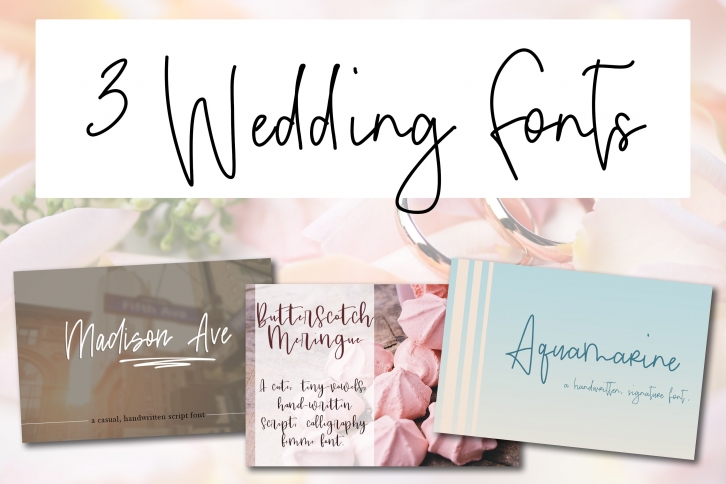
THREE Wedding Script s is a gorgeous font that was realeased on October 1, 2022. The font can be used in many style contexts and design environments. Perfect for invitations, magazines, websites, logos, and more! It was designed by Sunkissed Minimalist Co and the file size is 15.31 MB. Thanks for checking out this font!